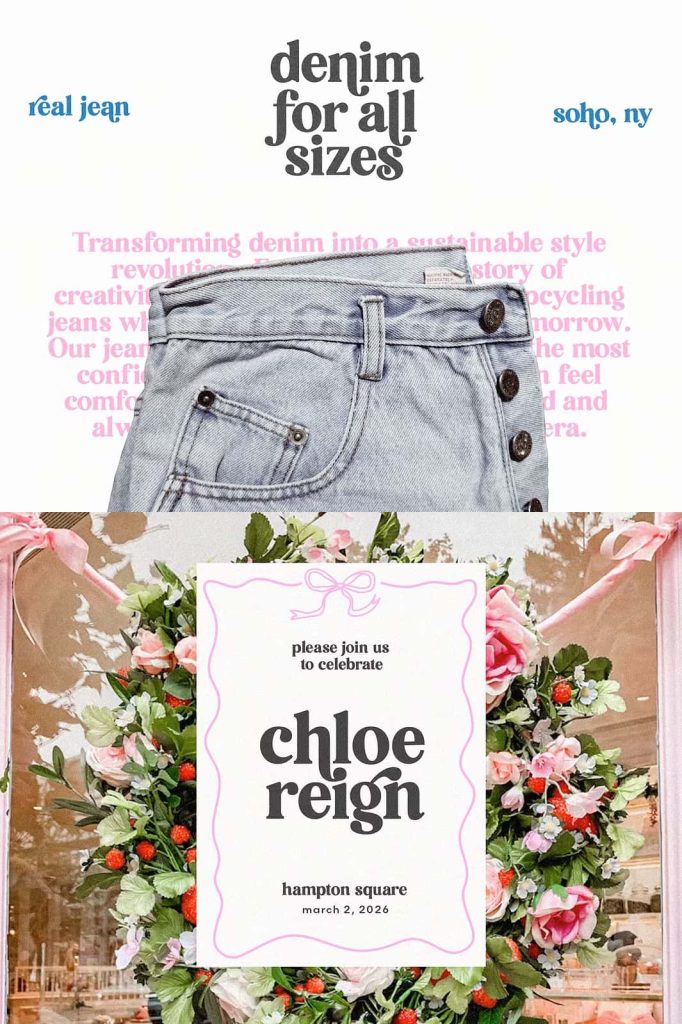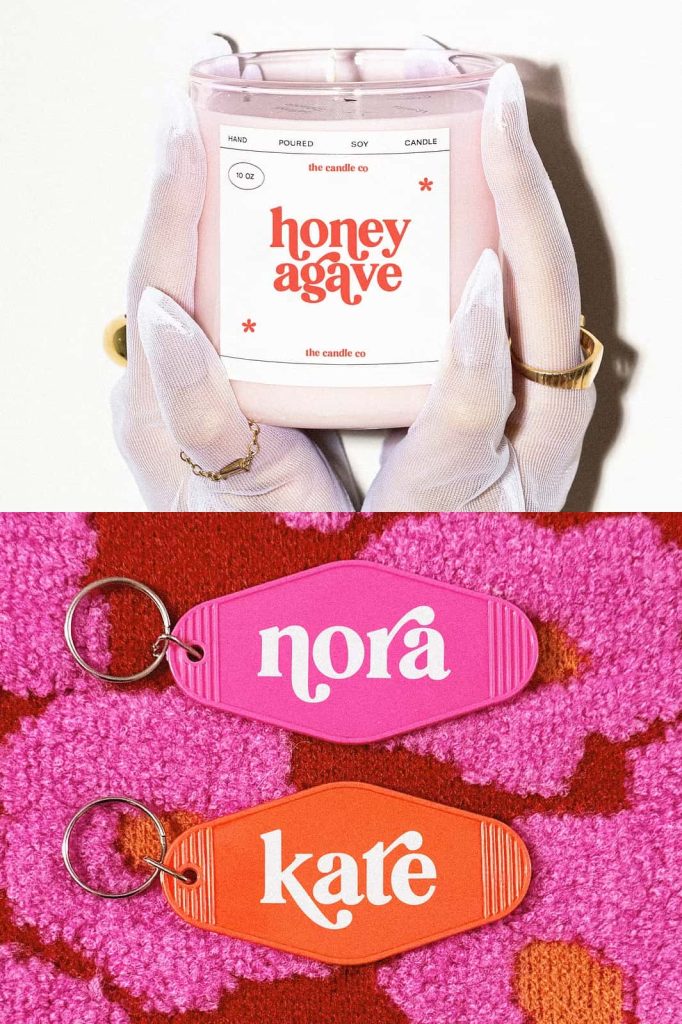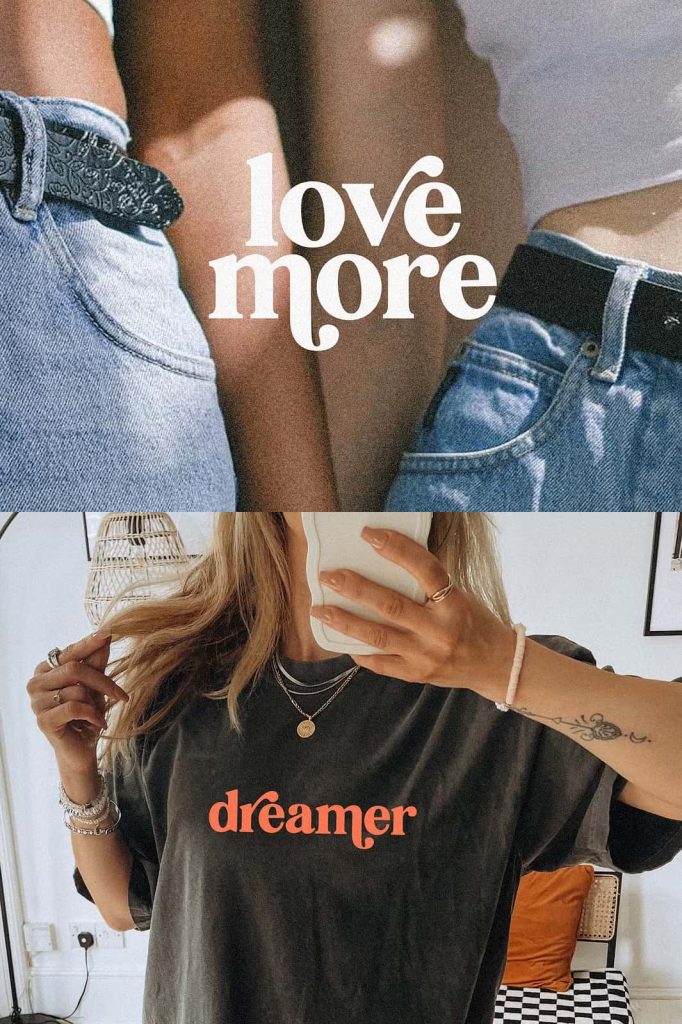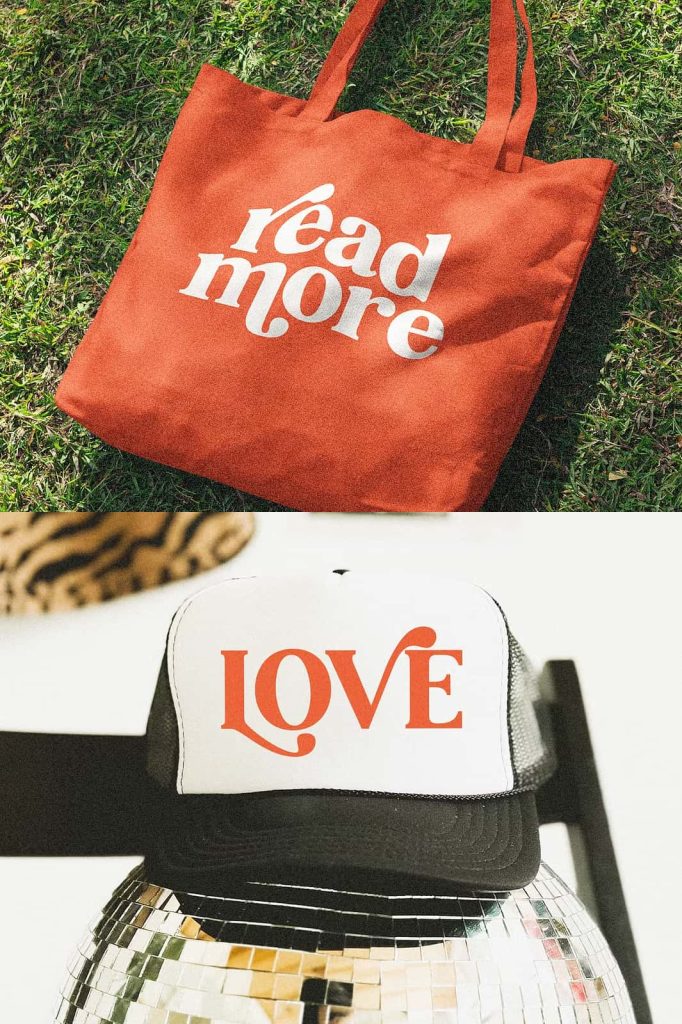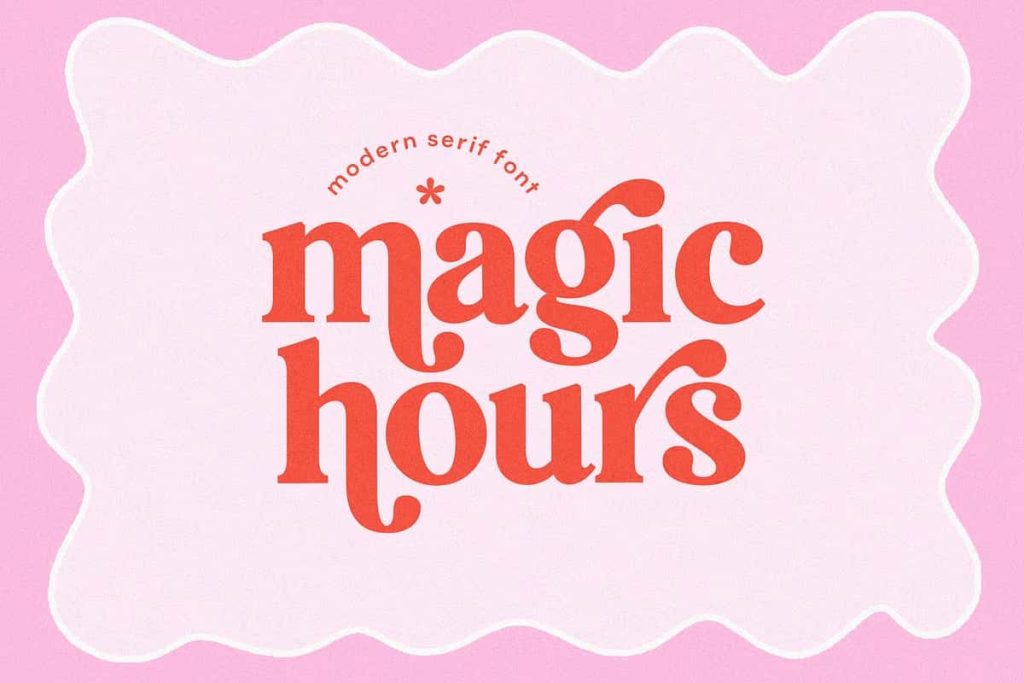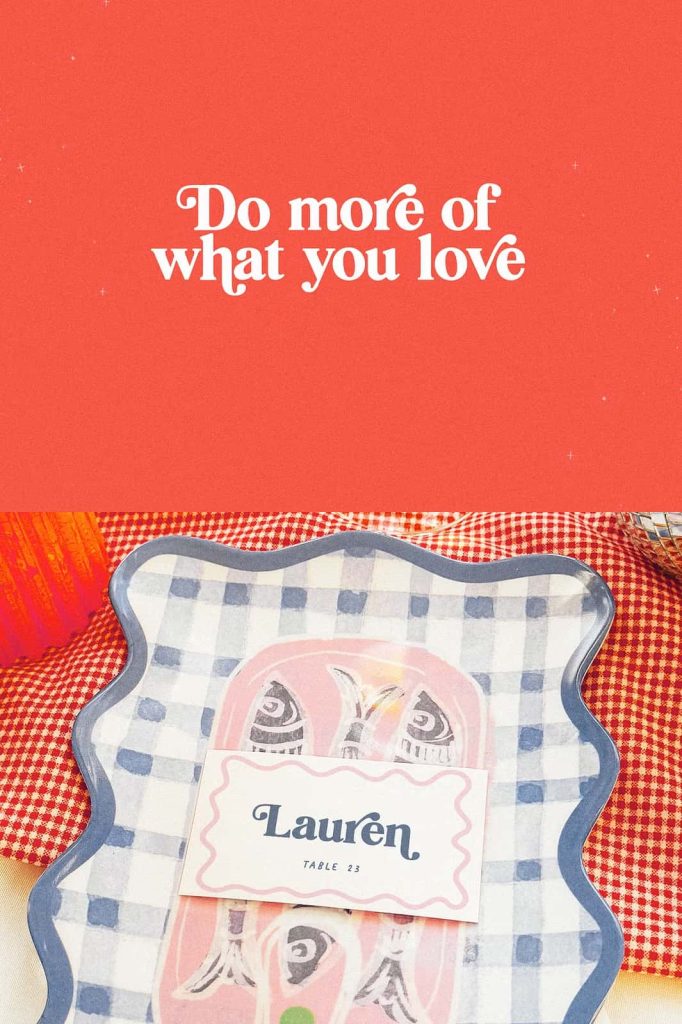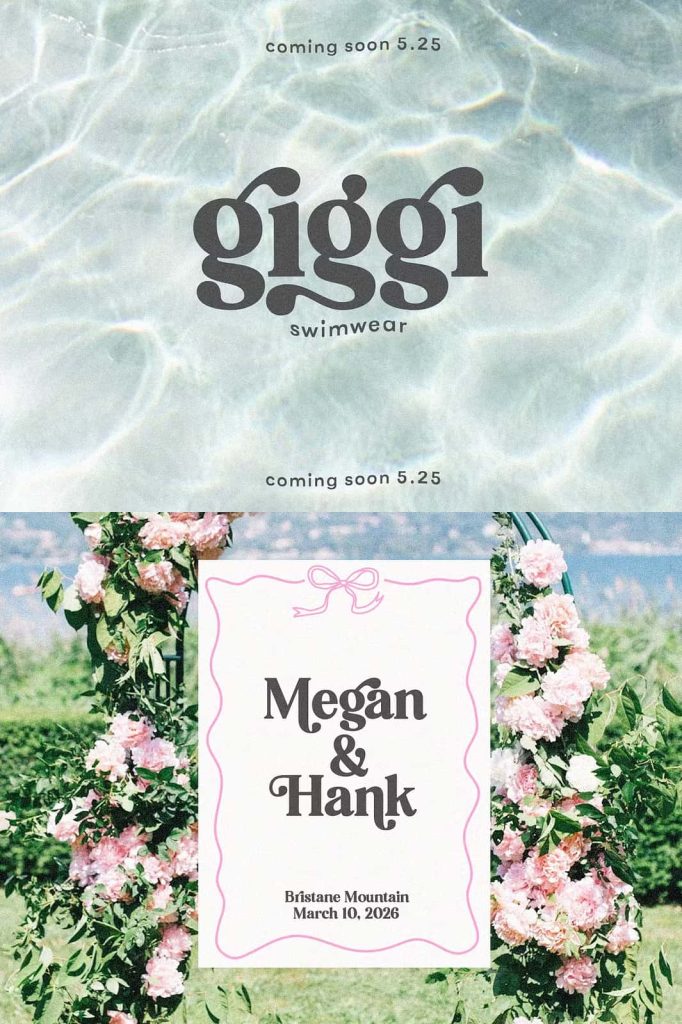
Magic Hours: A Bold Serif Font with a Modern Vintage Look
Magic Hours is a bold serif font that blends modern confidence with vintage charm. It captures the nostalgic warmth of retro typography while delivering the strength and clarity today’s designers demand. With its powerful strokes and expressive swoops, Magic Hours transforms simple text into striking visual statements.
This typeface does not whisper. It speaks with authority. It commands attention in logos, headlines, and branding materials. If you want typography that feels timeless yet fresh, bold yet elegant, Magic Hours offers the perfect balance.
Modern Design with a Vintage Twist
Magic Hours embraces contrast. Its structure feels contemporary and refined, yet its stylistic details echo classic vintage lettering. The bold serif construction gives it a strong foundation, while the flowing curves introduce personality and flair.
The combination creates a distinctive aesthetic that stands out in competitive markets. Designers can achieve a retro-inspired atmosphere without sacrificing modern polish. Magic Hours bridges eras, allowing brands to feel rooted in tradition while remaining forward-thinking.
Strong Strokes That Demand Attention
The bold strokes define the character of Magic Hours. Thick vertical lines anchor each letter, creating stability and visual weight. These heavy strokes give the font powerful shelf presence in packaging and impactful visibility in digital spaces.
In large display settings, the boldness becomes even more dramatic. Headlines appear confident and memorable. Logos gain authority and structure. Every letter carries intention and strength.
Elegant Swoops and Expressive Curves
Beyond its bold construction, Magic Hours features elegant swoops and refined curves that elevate its personality. These details add movement and rhythm to words, preventing the typeface from feeling rigid or overly formal.
The subtle curves soften the heaviness of the strokes. They introduce warmth and sophistication, making the font ideal for lifestyle brands, fashion labels, beauty products, and creative ventures.
Create Visual Drama with Display Typography
Magic Hours thrives in display applications. Use it for:
- Brand logos and wordmarks
- Packaging titles
- Magazine covers
- Website hero headlines
- Social media banners
- Poster typography
Its bold serif structure ensures immediate impact, while its vintage-inspired curves create emotional resonance. This combination allows you to craft designs that feel dramatic and stylish without overwhelming the layout.
Perfect for Branding and Identity Design
Strong typography shapes brand perception. Magic Hours helps businesses communicate confidence and creativity at the same time. The modern vintage look feels both trustworthy and exciting, which makes it especially effective for brands seeking distinction.
Whether you design for boutique fashion, artisan goods, hospitality, or lifestyle products, this bold serif font strengthens visual identity. It enhances brand storytelling and supports cohesive design systems across print and digital platforms.
Pairing and Layout Flexibility
Magic Hours pairs beautifully with minimalist sans-serif fonts. Use it as a headline font while keeping body text clean and simple. This pairing creates strong hierarchy and balance within your layout.
You can also combine it with muted color palettes to highlight its vintage character or with vibrant tones to emphasize its modern edge. Its versatility allows designers to experiment freely while maintaining cohesive style.
Stand Out in Print and Digital Media
Magic Hours performs exceptionally well across various formats. In print, its bold strokes maintain clarity and definition, even on textured paper or large-format posters. In digital environments, the strong letterforms ensure readability on screens and mobile devices.
The modern vintage aesthetic resonates particularly well in social media graphics and online branding. It captures attention quickly, which is essential in fast-scrolling digital spaces.
Why Choose Magic Hours for Your Next Project?
Magic Hours offers more than a bold serif appearance. It provides a strategic design tool that enhances visibility, strengthens branding, and communicates personality. Its thick strokes create authority. Its swooping curves introduce elegance. Together, they form a typeface that feels dynamic and memorable.
Choose Magic Hours when you want to:
- Create bold, eye-catching headlines
- Build a modern vintage brand identity
- Add drama and flair to packaging design
- Design logos with strong personality
- Elevate editorial layouts with statement typography
Magic Hours captures the essence of bold design with a nostalgic twist. It transforms typography into a powerful visual asset that draws attention and reinforces brand presence. When your project demands strength, elegance, and timeless style, this bold serif font delivers impact with every letter.